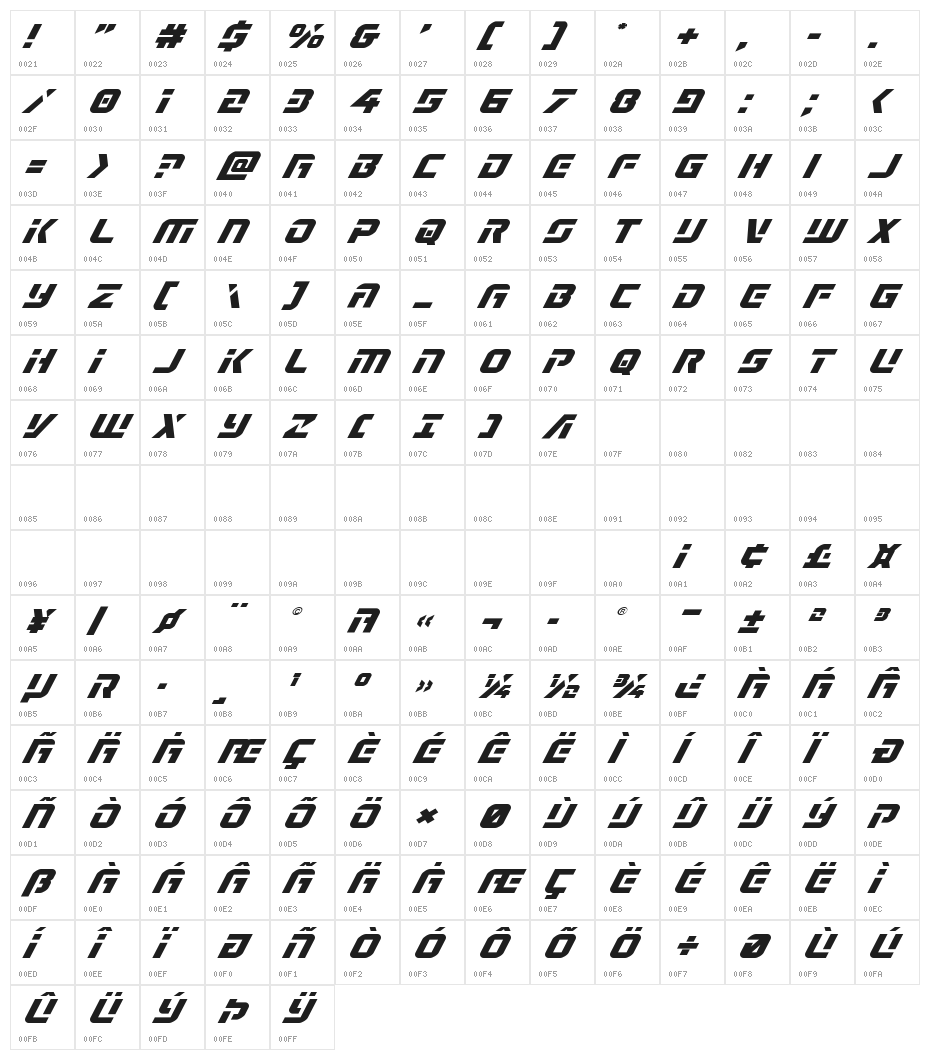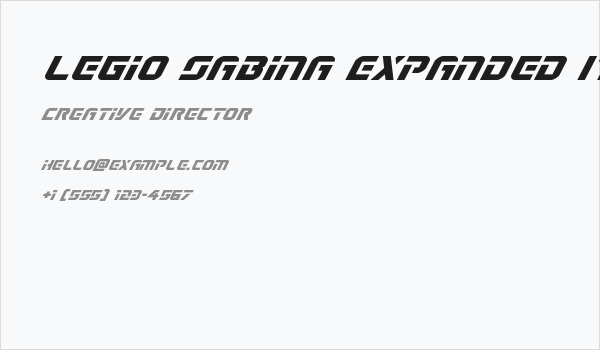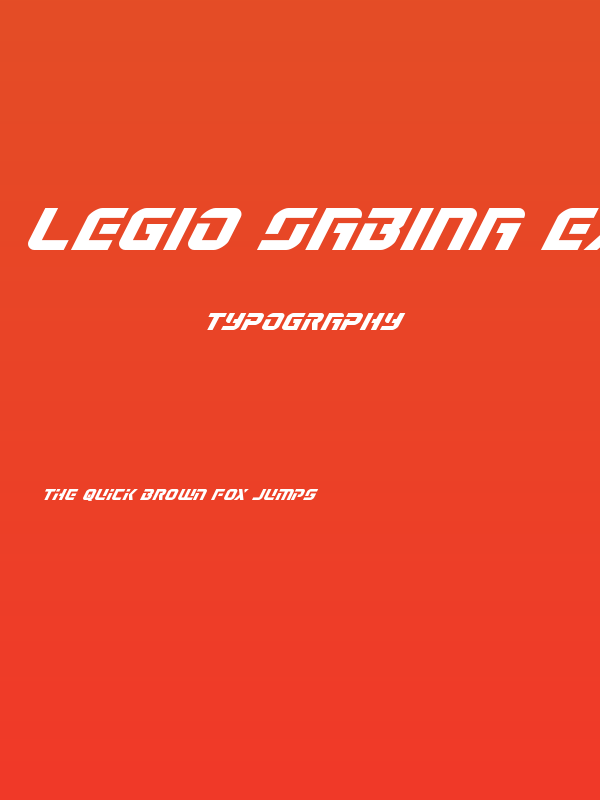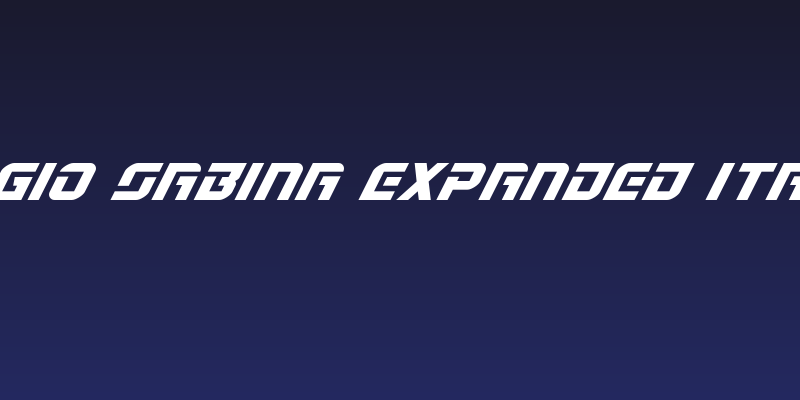
Legio Sabina Expanded Italic Font
Legio Sabina Expanded Italic Description
This font features a bold and dynamic style with an italic slant, giving it a sense of motion and energy. The characters are expanded, providing a wide and impactful presence. The strokes are thick and consistent, offering a strong visual weight. The design incorporates sharp angles and geometric shapes, creating a modern and futuristic appearance. The spacing between characters is tight, enhancing the compact and cohesive look of the text. This font is suitable for projects that require a bold statement and a contemporary aesthetic.
Proposed ProjectsIdeal for sports branding, futuristic designs, technology-related projects, and dynamic advertising campaigns.